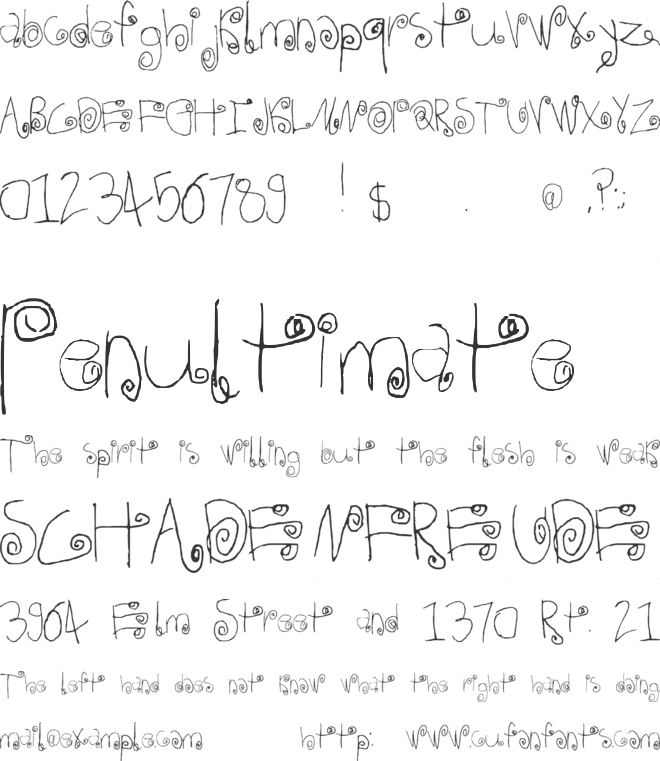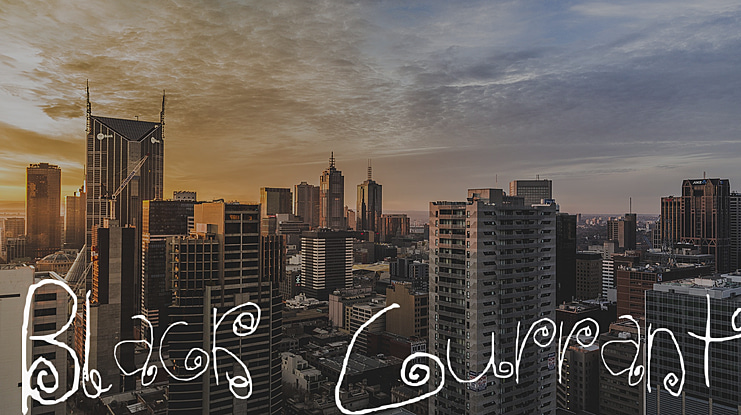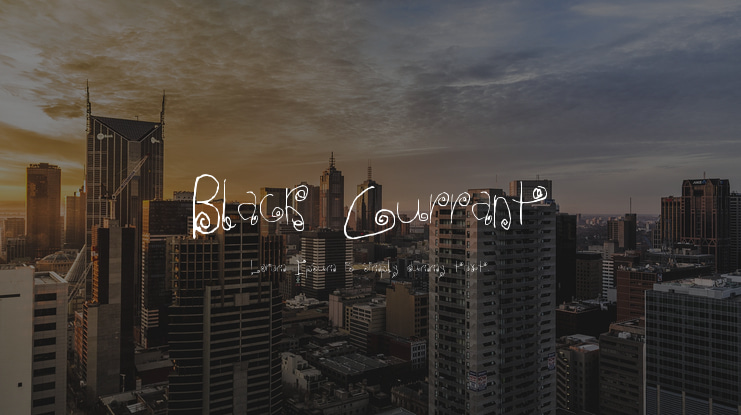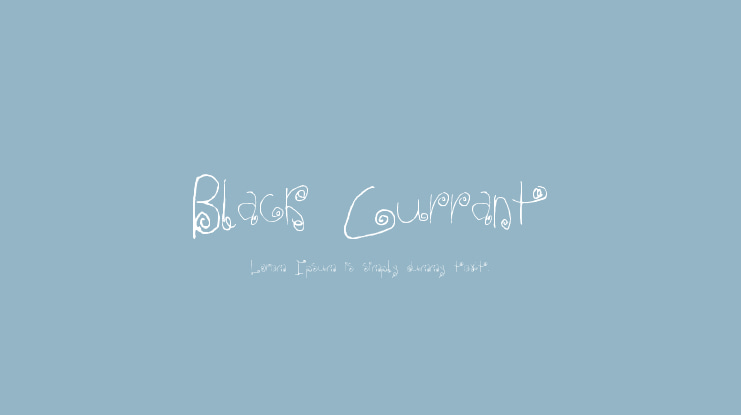
Black Currant Font
Put this font through Text Effects via WordArt in a Microsoft Word Document to give it your own flare. The font was created by my 6 yr old granddaughter. 99c to use Commercially at https://www.creativefabrica.com/designer/shelley-2 Thank you.